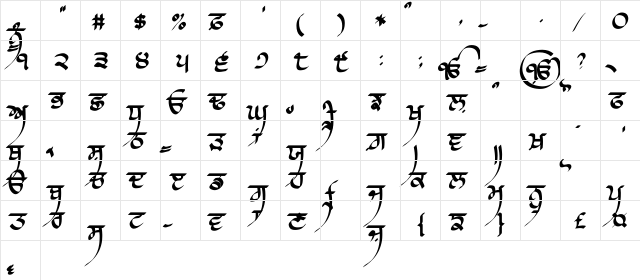
Raaj Script 2 Thin Regular
Design Context for Raaj Script 2 Thin Typeface
Raaj Script 2 Thin flows with the natural rhythm of handwritten lettering, making it ideal for designs that call for warmth and personal expression. Its slender proportions lend an understated elegance to any composition.
Font Pairing: Combine Raaj Script 2 Thin with a simple geometric sans for maximum contrast — the tension between flowing curves and clean structure is a classic typographic pairing.
Pro Tip: Use Raaj Script 2 Thin for short runs of text — names, titles, or taglines. Extended body copy in script faces tires the eye quickly.